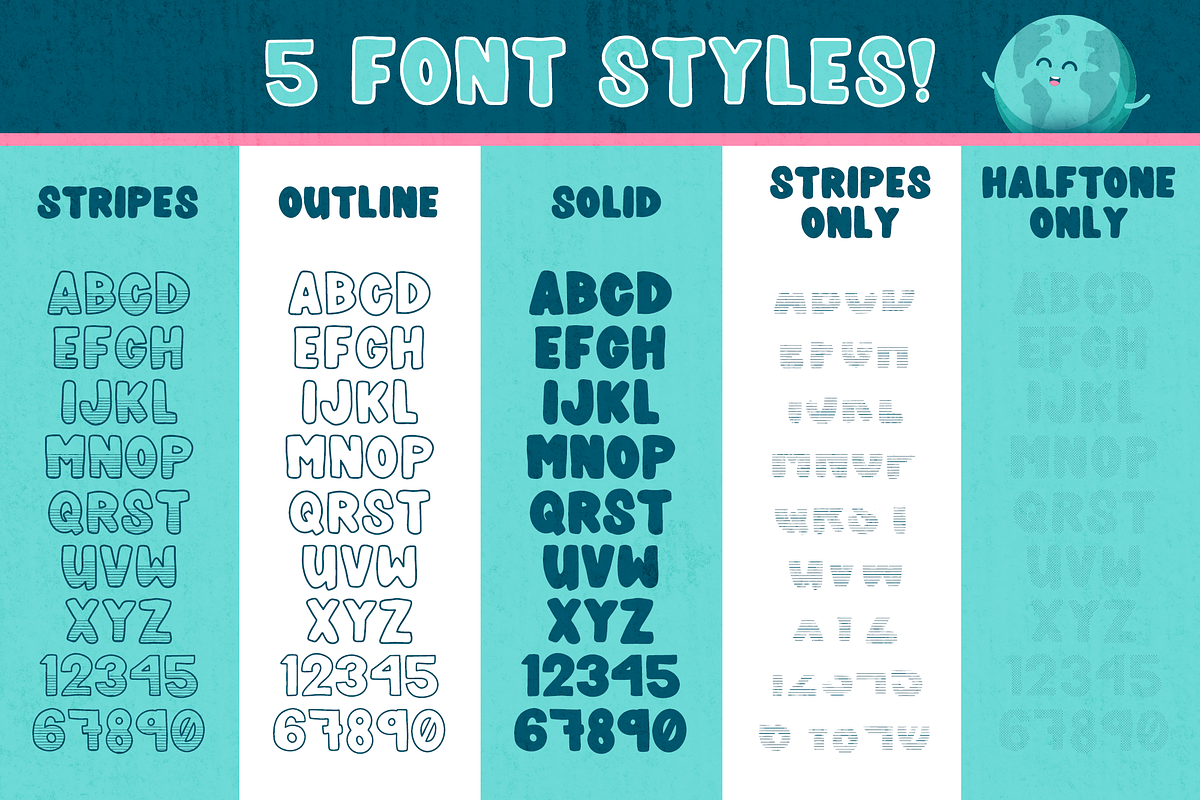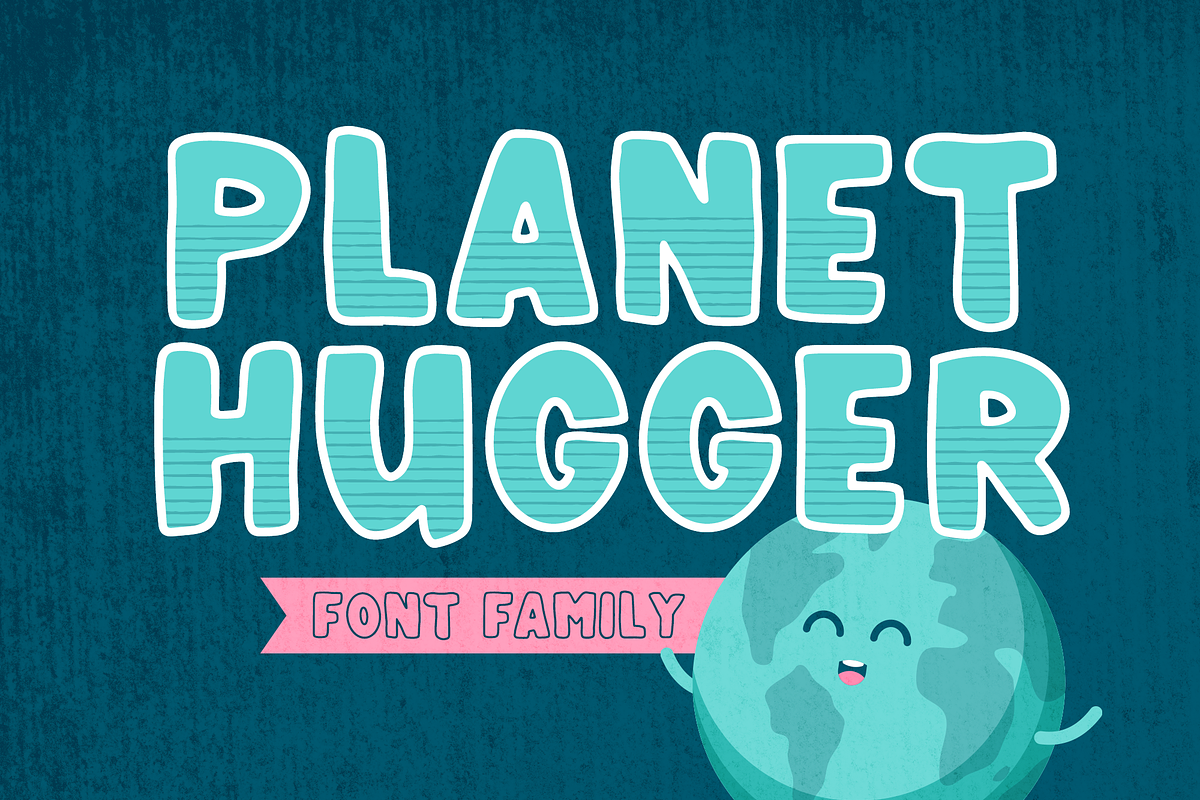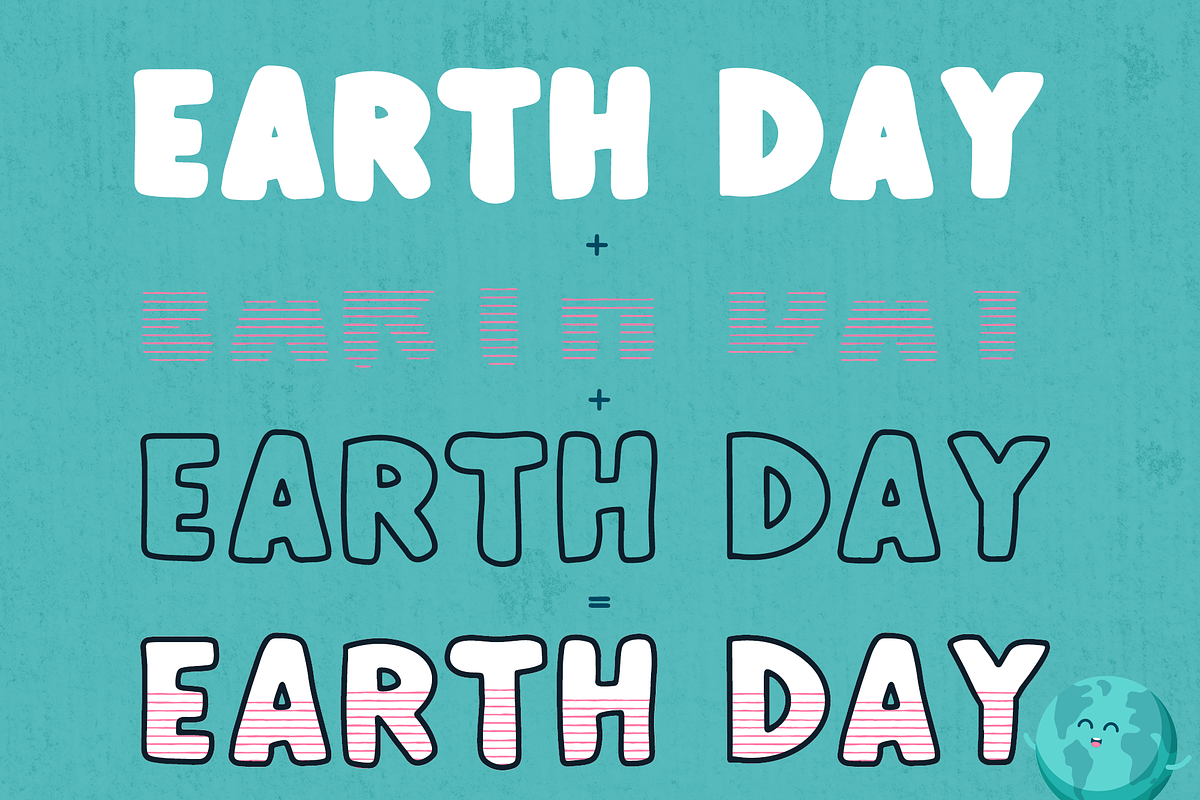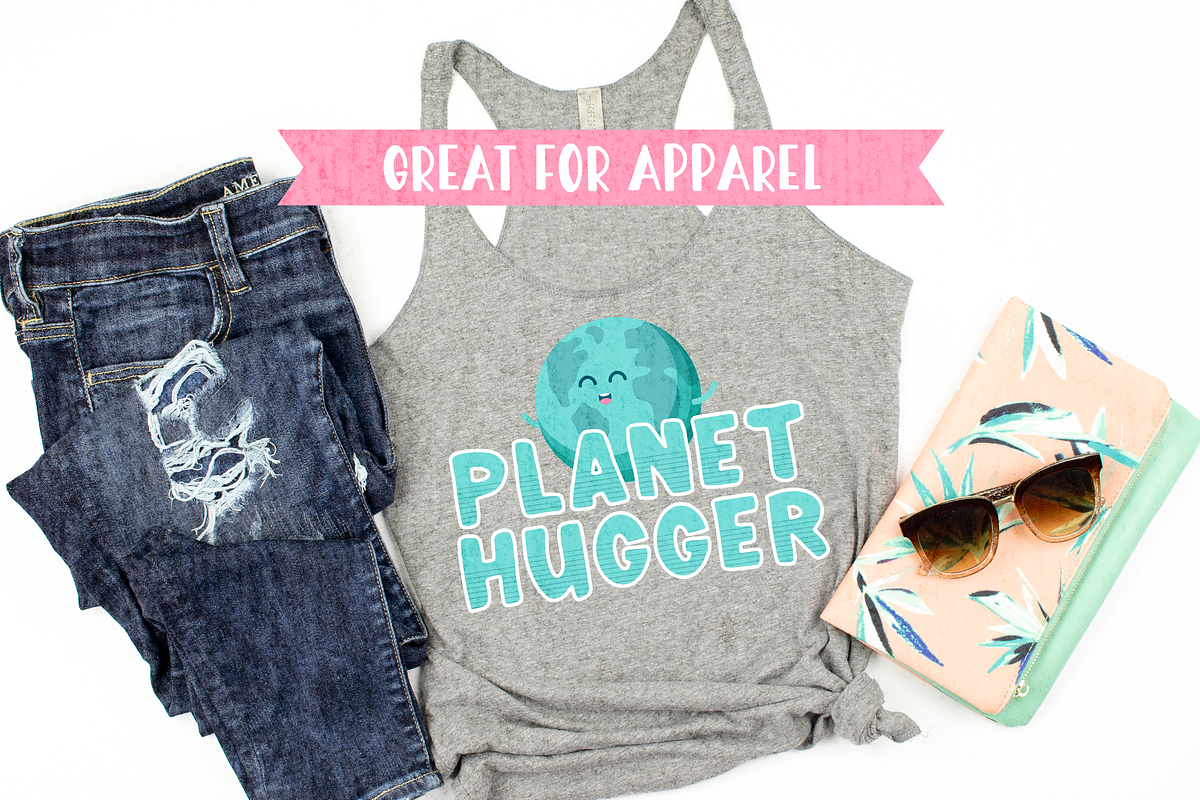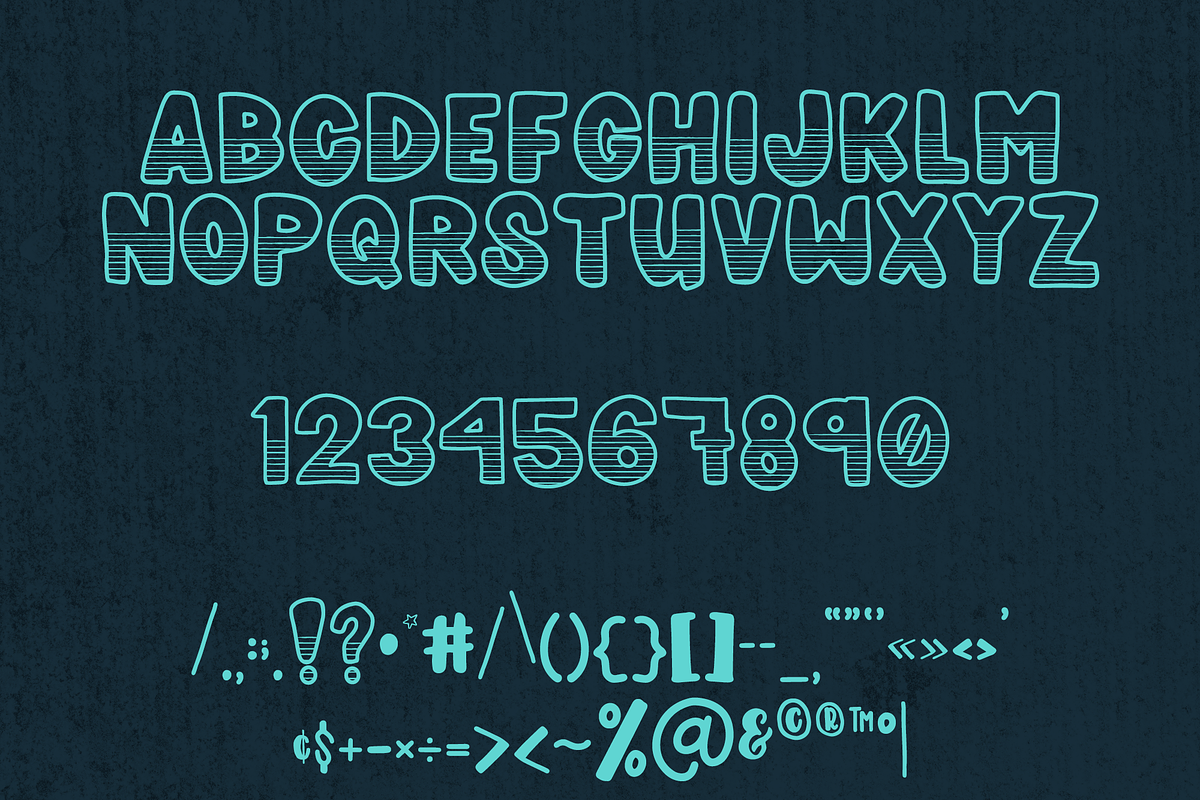
Planet Hugger - Layered Font Family
Planet Hugger is a hand-lettered imperfect feminine layered font family.
It is perfect for all of your design work including holiday decorations, Earth Day t-shirts, journals and coloring books, easter baskets and mugs, party banners, kids back to school school activity sheets, or print on demand products to name a few. Great for any diy project or cutting machine design such as welcome home and birthday banners.
This fun and festive stackable font family not only includes the Stripes Planet Hugger version, but also the Solid, Outline, Stripes Only, and Halftone versions so that you can stack and layer to add some extra character to your project. Use it as a font for Cricuit, Silhouette, or any vinyl cut machine. Makes a great weeding font!